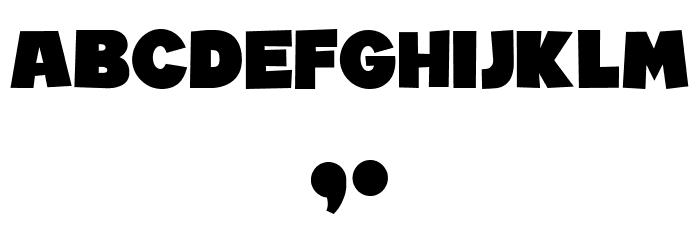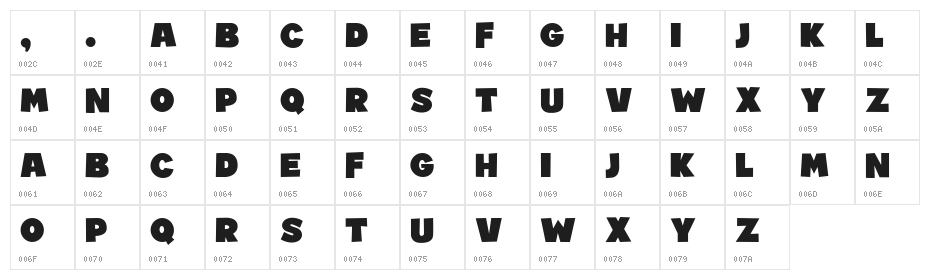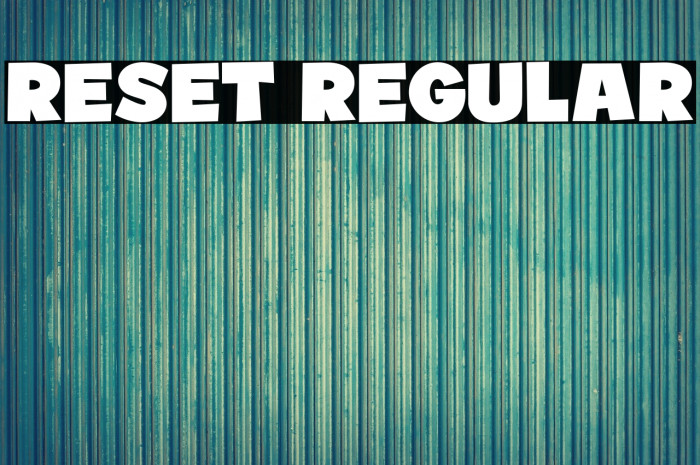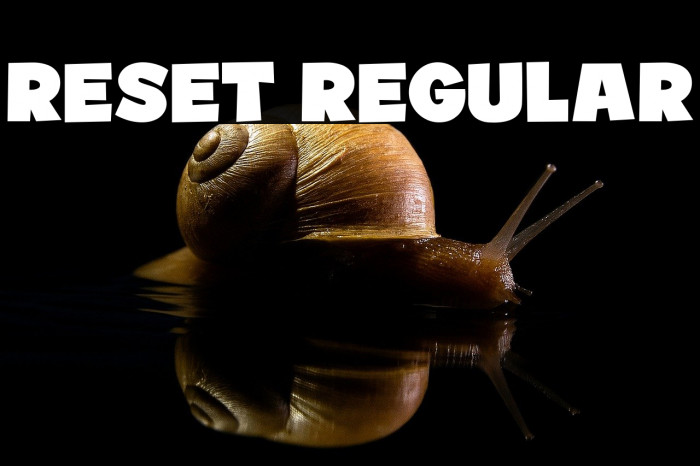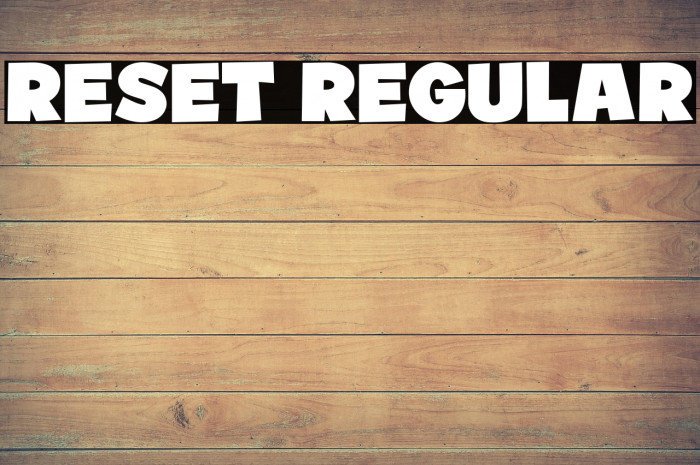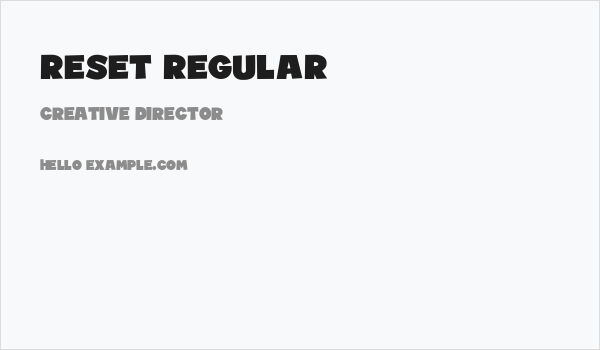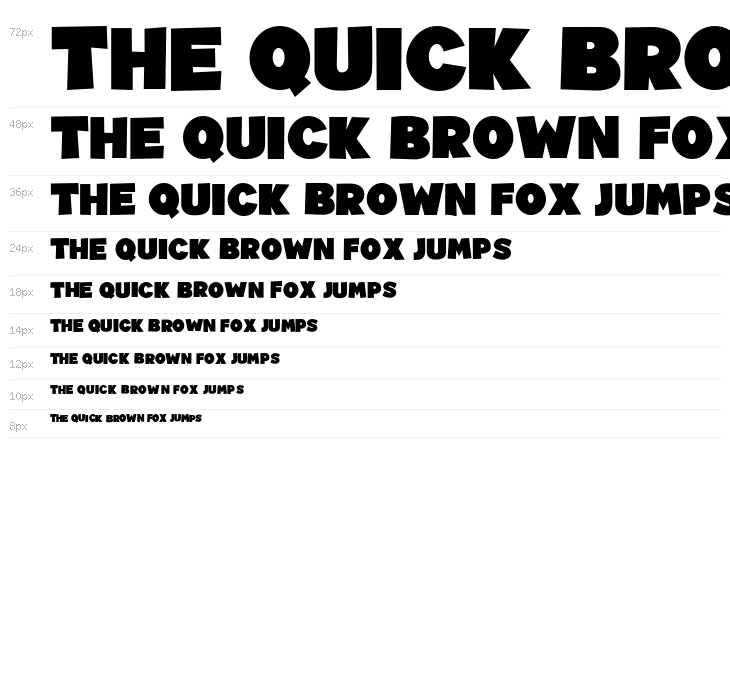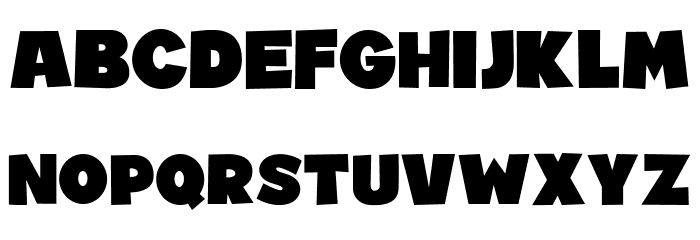
Reset Regular Font
Reset Regular Description
This font features bold, chunky letters with a playful and dynamic appearance. The characters are designed with a slight tilt, adding a sense of movement and energy. The strokes are thick and uniform, giving the font a strong presence. The overall look is reminiscent of retro or comic styles, making it ideal for eye-catching designs. The uppercase letters are particularly prominent, with wide, rounded shapes that enhance readability. The font's unique style makes it suitable for creative projects that require a fun and engaging visual element.
| Overall Style | Playful, Retro |
| Proposed Projects | Ideal for posters, comic book titles, children's books, and playful branding. |